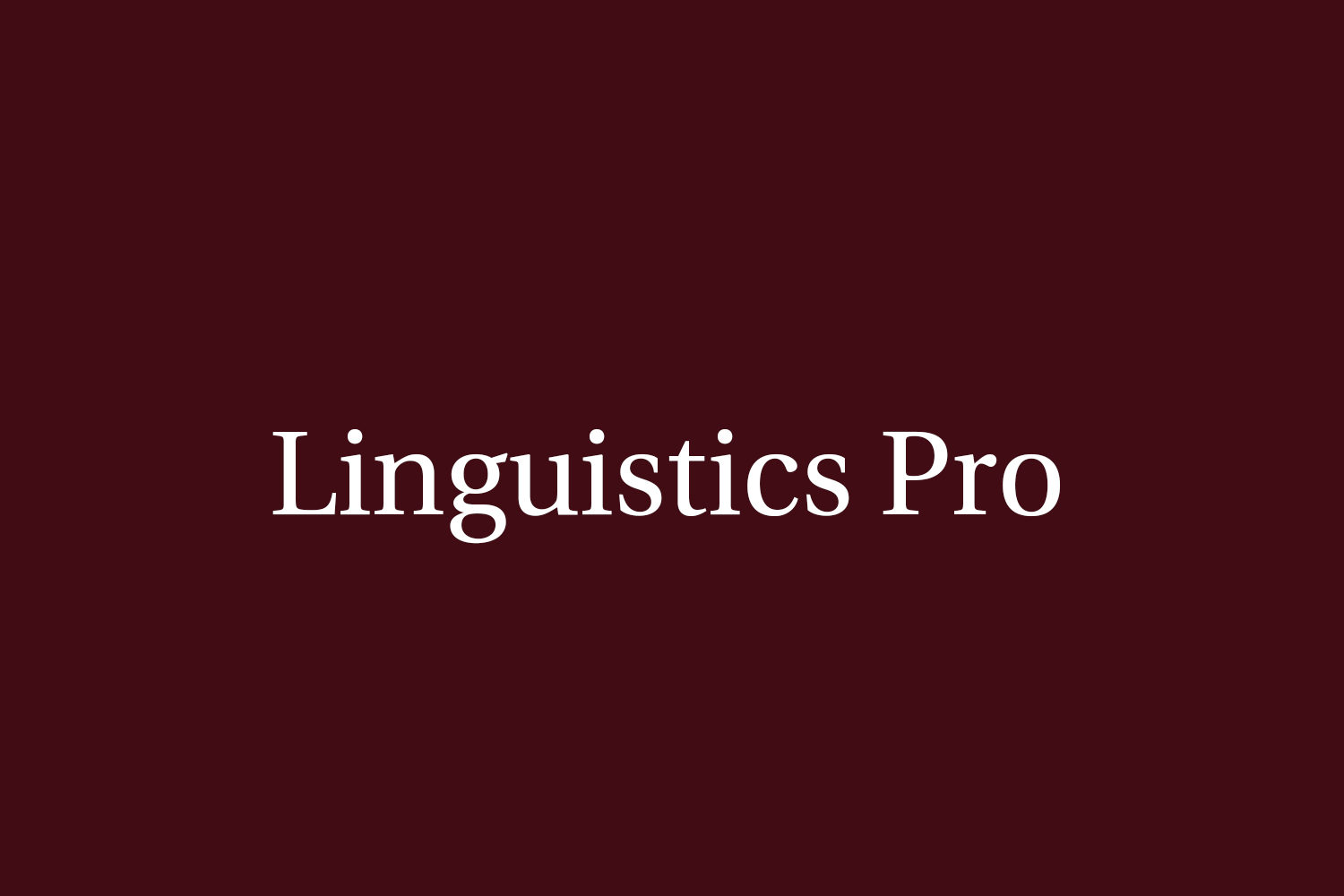
Linguistics Pro Free Font Family is a part of the project LOCAL FONTS for development of free-to-use fonts with the modern Bulgarian letterform model in the Cyrillic Unicode range. The project as a whole is based on well-known fonts published under licenses which permit modifications and derivative works. The Linguistics Pro font family is based on the Utopia Nova font family, issued by Andreas Nolda.